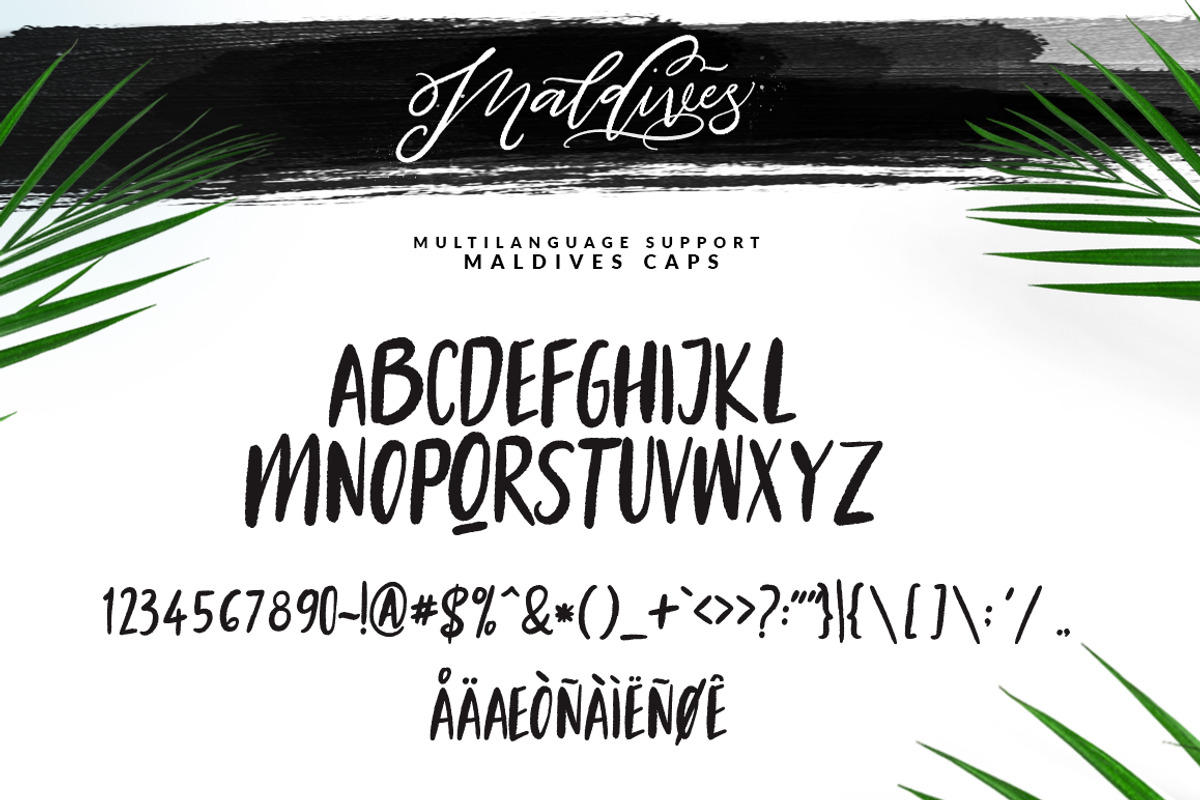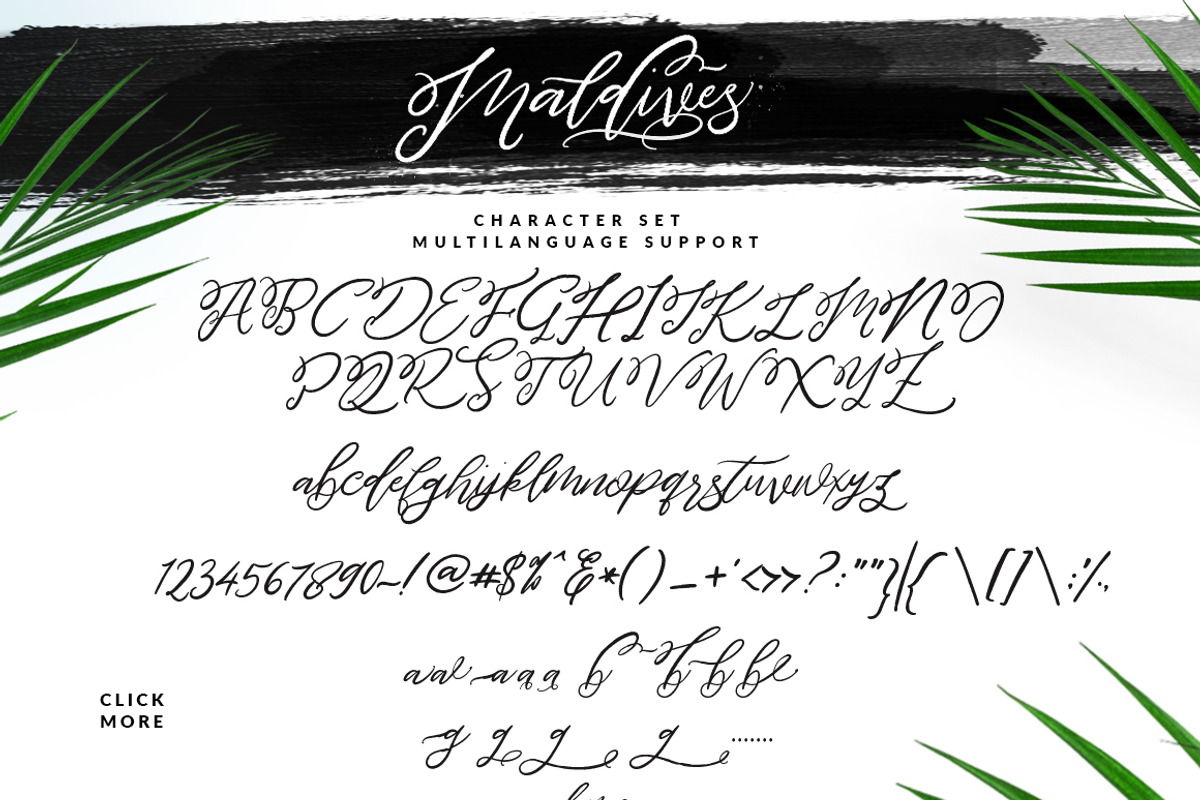
Maldives Script
Introducing Maldives handwriting brush with some combination of style Street and LifeStyle. Ready used with beautiful character!
These three lovely fonts combination would be perfect to combine in your design. with Handmade Brush Texture style. The fonts are great for product logo,wedding card logo, clothing brand logo,Vintage design and much more.
Basic Latin A-Z and a-z
Symbols
Stylistic Set
Ligature
Multilanguage Support